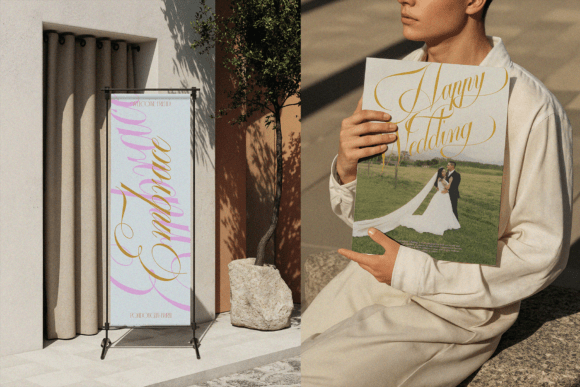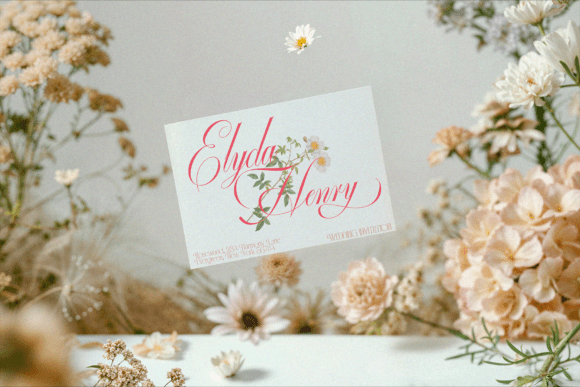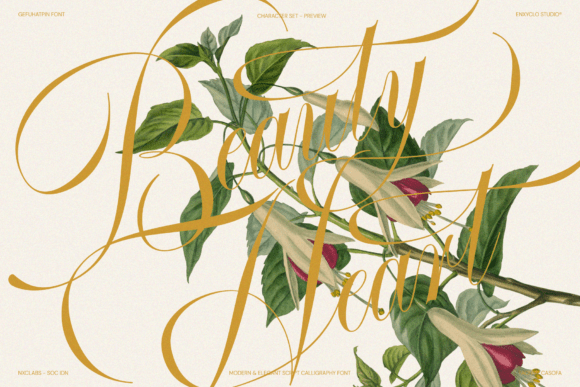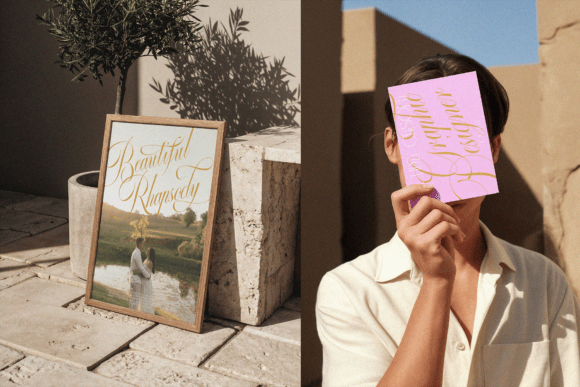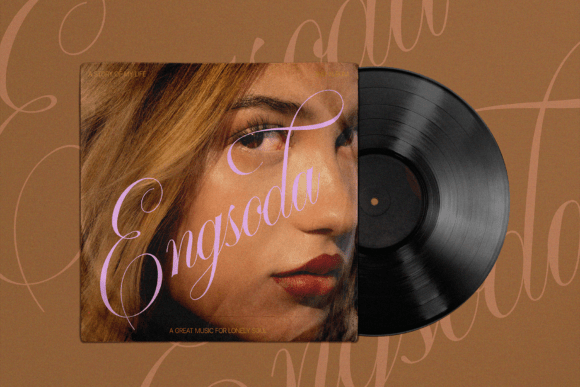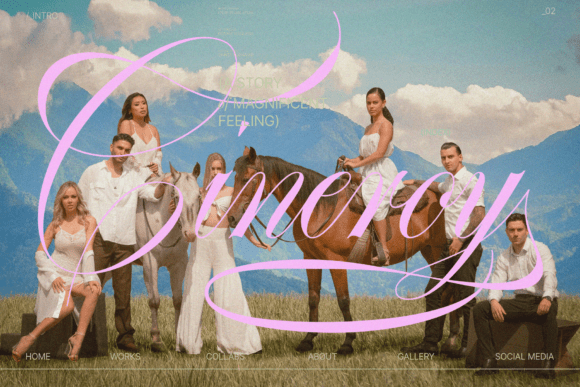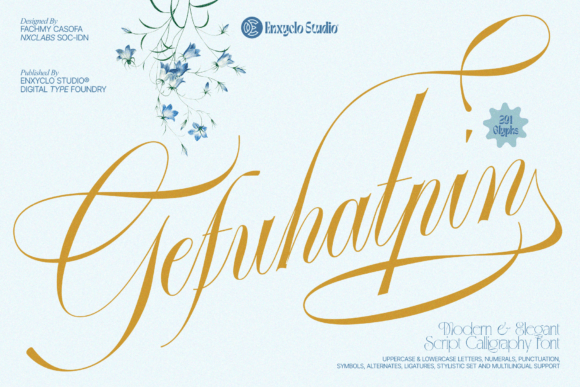
Introducing GEFUHATPIN: The Epitome of Luxurious Script Calligraphy
In the realm of typography, few fonts manage to strike a balance between modernity and timeless elegance. GEFUHATPIN, a luxurious script calligraphy font, is one such exceptional typeface that effortlessly merges the sophistication of the present with the classic charm of the past. This stunning font is designed to provide brands with an unforgettable glamorous presence, making it an ideal choice for those seeking to elevate their visual identity.
The Quintessential Spirit of Luxury
GEFUHATPIN embodies the quintessential spirit of luxury, boasting a sophisticated beauty that is sure to captivate audiences. Its rhythmically refined strokes and gracefully flowing curves delicately transform modern calligraphy into a bold statement of class and style. Every jot and tittle within this sculpted font transcends its designed intention, turning logos, brand identities, fashion lookbooks, or bespoke packaging into works of artistic excellence.
A Harmonious Blend of Contemporary Style and Timeless Appeal
One of the standout features of GEFUHATPIN is its seamless script flow and stylish persona, which expertly carve a unique aesthetic experience. This font exudes a harmonious blend of contemporary style and timeless appeal, making it an excellent choice for designers and crafters seeking to create visually stunning designs. Whether you’re working on a luxury brand, fashion label, or beauty product, GEFUHATPIN is sure to infuse your design with an unforgettable hint of sophistication.
A Tribute to Fashion, Beauty, and Luxury Skin Care Branding
GEFUHATPIN is a homage to the realms of fashion, beauty, and luxury skin care branding. This font is specifically designed to cater to the needs of high-end brands seeking to establish a strong visual identity. With GEFUHATPIN, designers can create breathtaking designs that evoke a sense of luxury and refinement. From elegant logos to sophisticated packaging, this font is sure to elevate your design to new heights.
Key Features of GEFUHATPIN
- Luxurious Script Calligraphy: GEFUHATPIN boasts a beautiful, flowing script that is perfect for creating elegant designs.
- Modern and Timeless Elegance: This font strikes a perfect balance between modernity and timeless elegance, making it suitable for a wide range of design applications.
- Sophisticated Beauty: GEFUHATPIN’s refined strokes and curves give it a sophisticated beauty that is sure to captivate audiences.
- Seamless Script Flow: The font’s seamless script flow and stylish persona make it an excellent choice for creating visually stunning designs.
Design Applications for GEFUHATPIN
GEFUHATPIN is a versatile font that can be used in a variety of design applications, including:
- Logo Design: Create elegant and sophisticated logos that reflect your brand’s values and personality.
- Brand Identity: Establish a strong visual identity with GEFUHATPIN’s luxurious script calligraphy.
- Fashion Lookbooks: Elevate your fashion lookbooks with GEFUHATPIN’s refined and elegant font.
- Bespoke Packaging: Add a touch of luxury to your packaging with GEFUHATPIN’s sophisticated beauty.
In conclusion, GEFUHATPIN is a luxurious script calligraphy font that is poised perfectly on the crossroads of modernity and timeless elegance. With its sophisticated beauty, seamless script flow, and stylish persona, this font is sure to elevate your design to new heights. Whether you’re a designer or crafter, GEFUHATPIN is an excellent choice for creating visually stunning designs that evoke a sense of luxury and refinement.